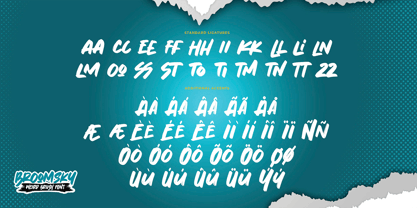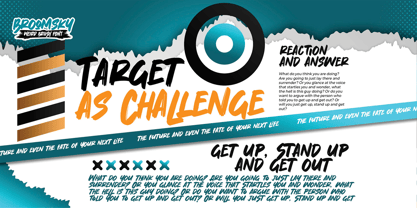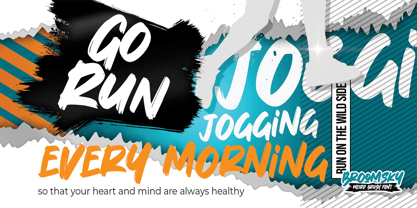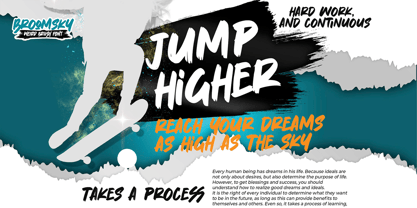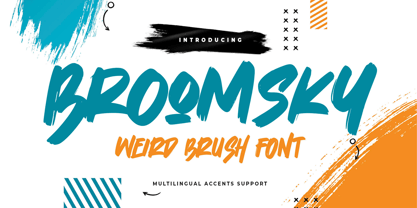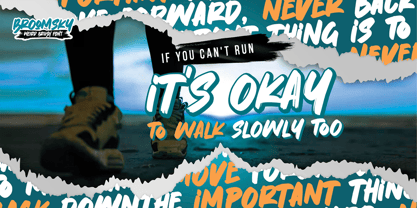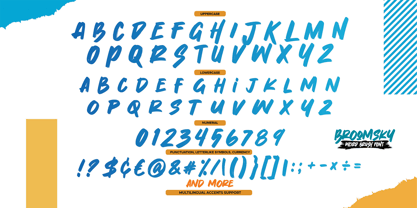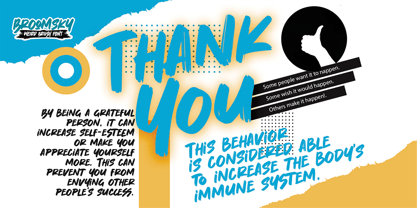
Broomsky
von Almarkha Type
Die Schriftfamilie Broomsky wurde von Abdul Malik Wisnu entworfen und von Almarkha Type veröffentlicht. Broomsky enthält 1 Stile. Mehr über diese Familie
Introducing Broomsky – a unique brush font that embodies an authentic style. This versatile typeface is ideal for a variety of creative projects, including watermarks on photography, logos, branding, invitations, advertisements, product designs, stationery, wedding designs, labels, and packaging. Broomsky features a natural handwritten feel, adding a beautiful touch to every detail of your design. Perfect for invitations, book covers, crafts, photography overlays, signs, window art, scrapbooking, tags, and much more!
Designer: Abdul Malik Wisnu
Aktuelle Foundry: Almarkha Type